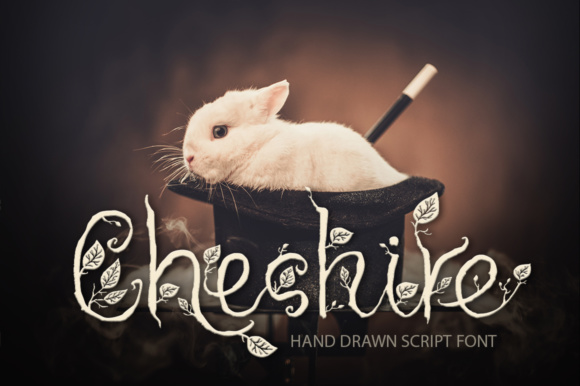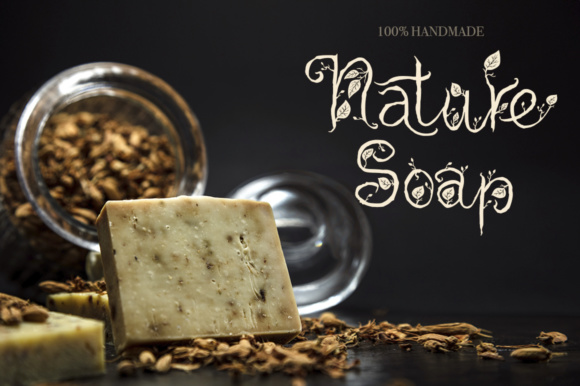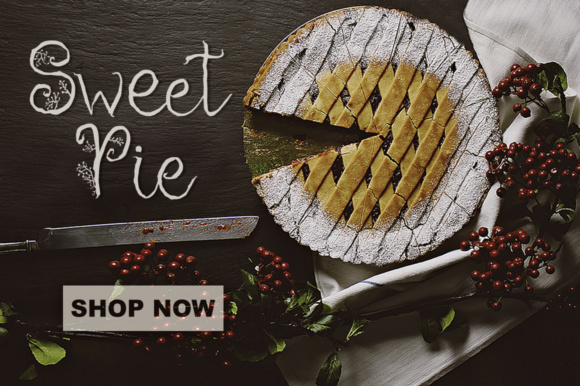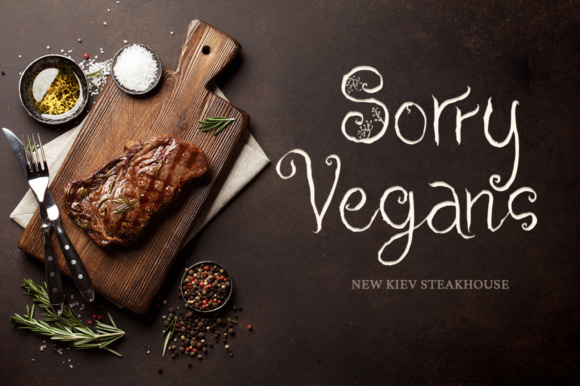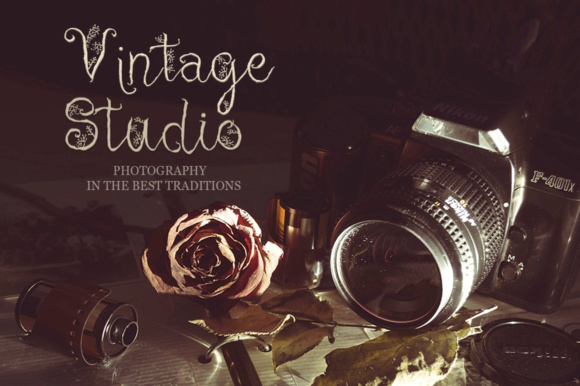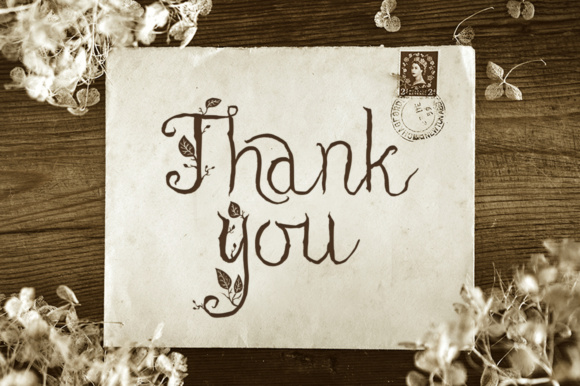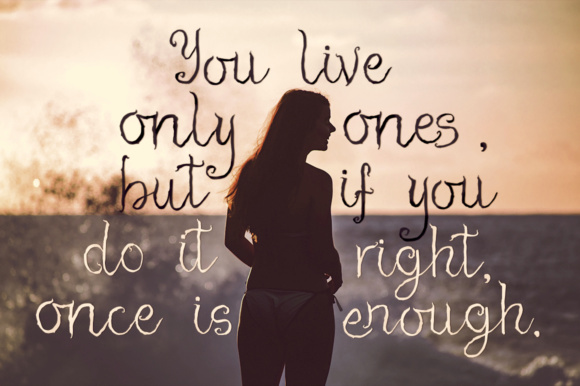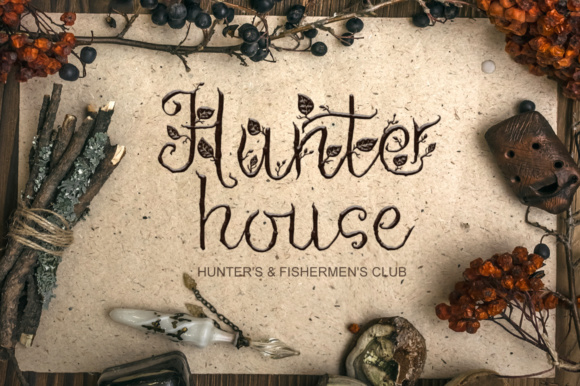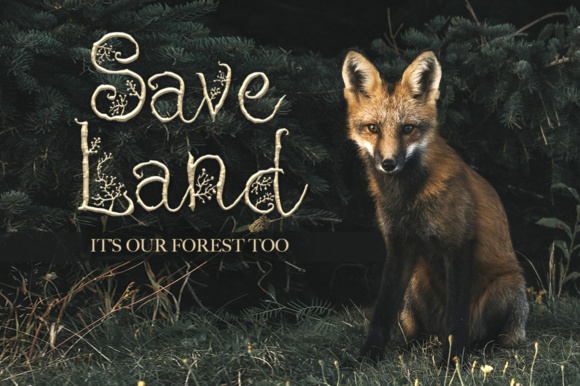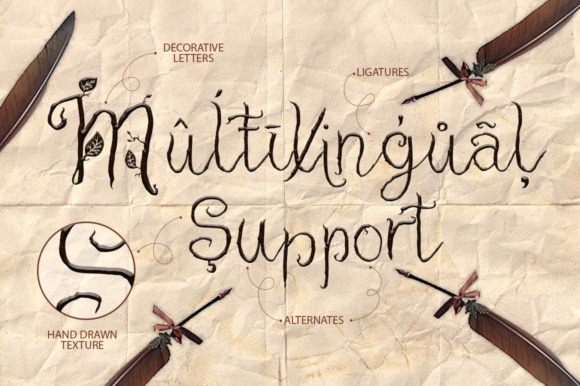
Cheshire Font
About Cheshire Font
Cheshire is a beautiful script font with a hand drawn texture, lots of ligatures and 3 alternate sets for the whole alphabet. It was created for beautiful typographic projects, greeting cards, t-shirts, posters, mugs, branding materials, photography overlays and so much more!
It’s very easy to get alternative glyphs:
Just type the number after any letter (1…3 for lowercase and 1…3 for uppercase) So, you can forget about the Glyphs panel, have fun and create great designs!